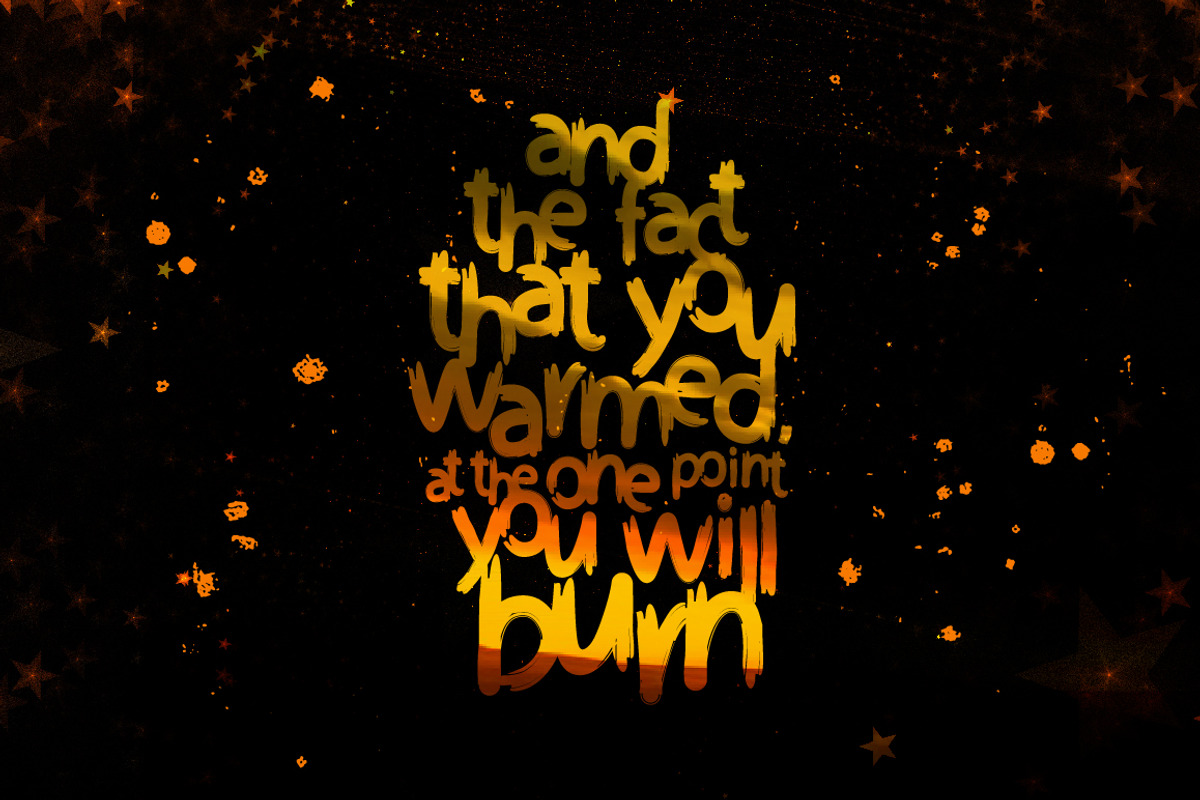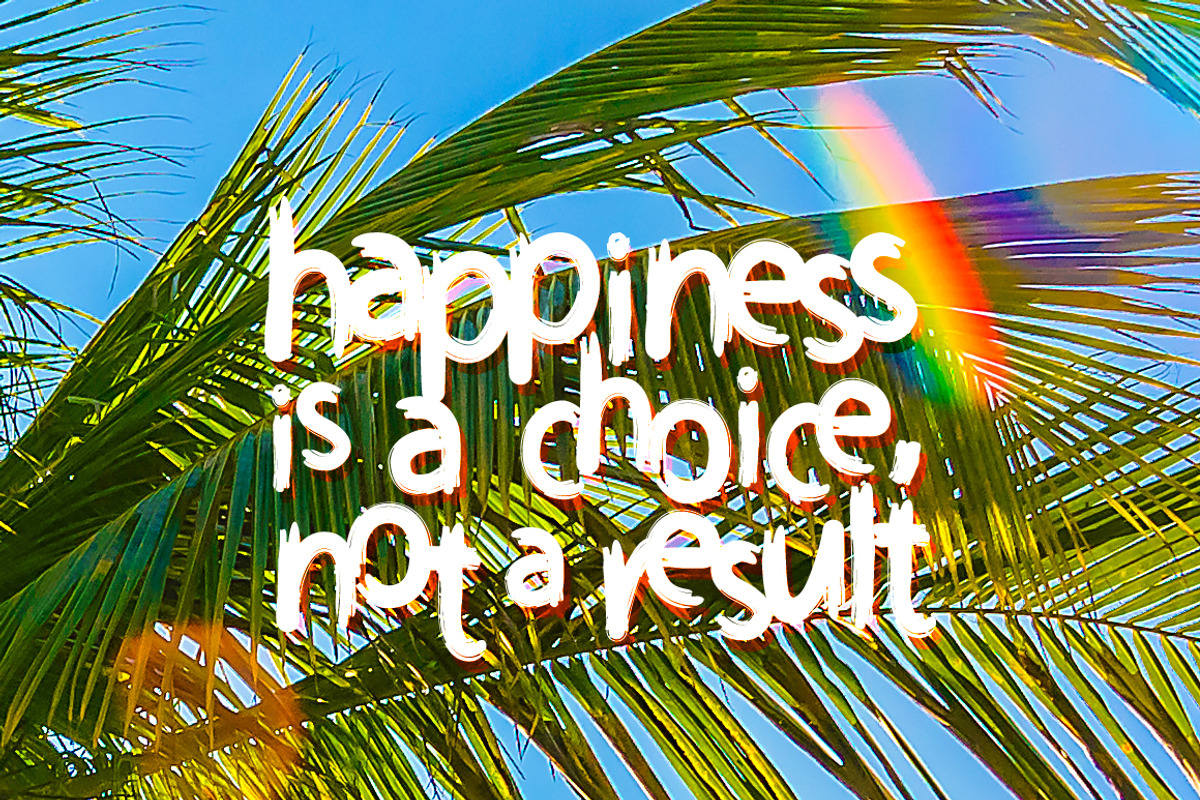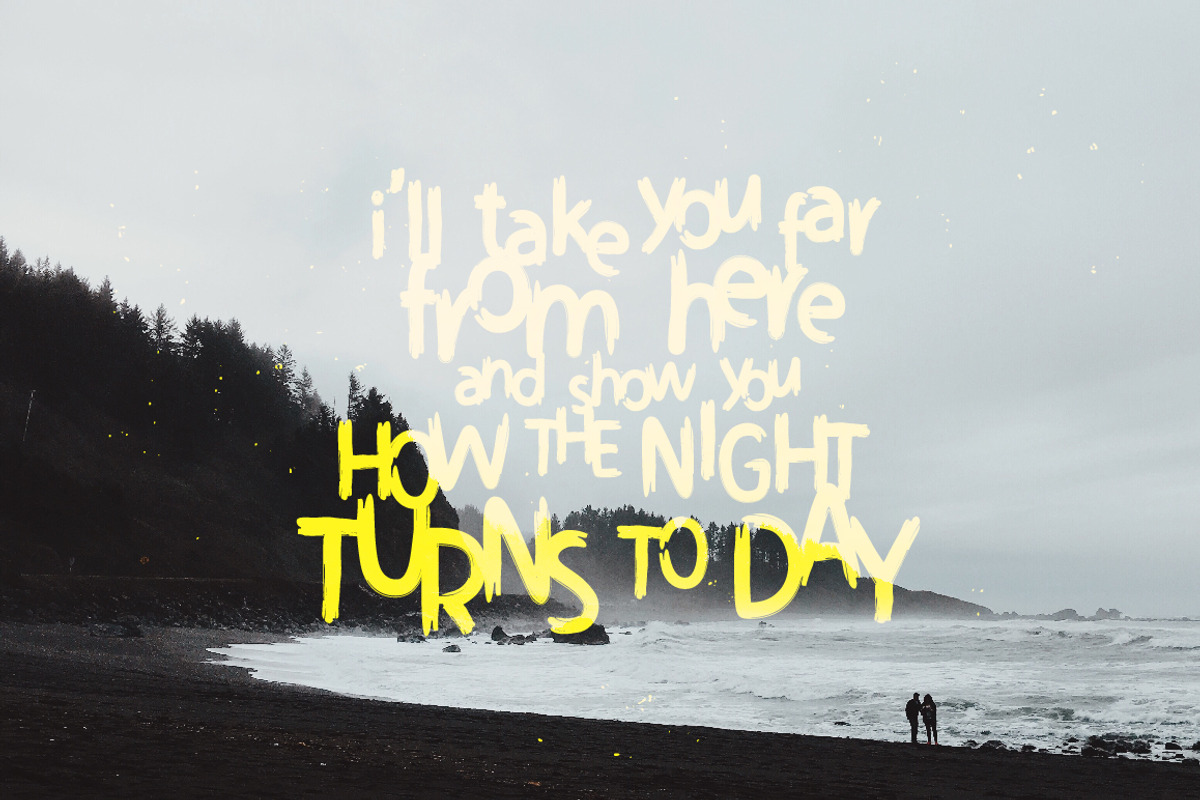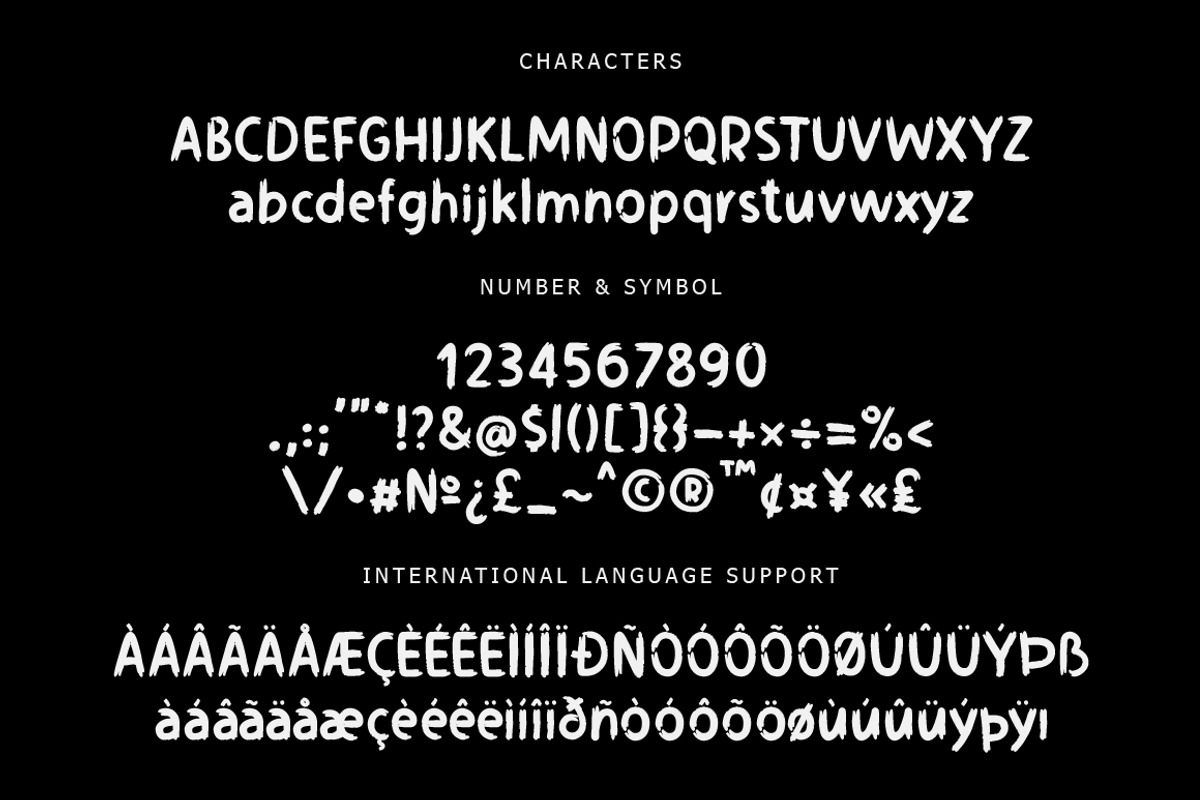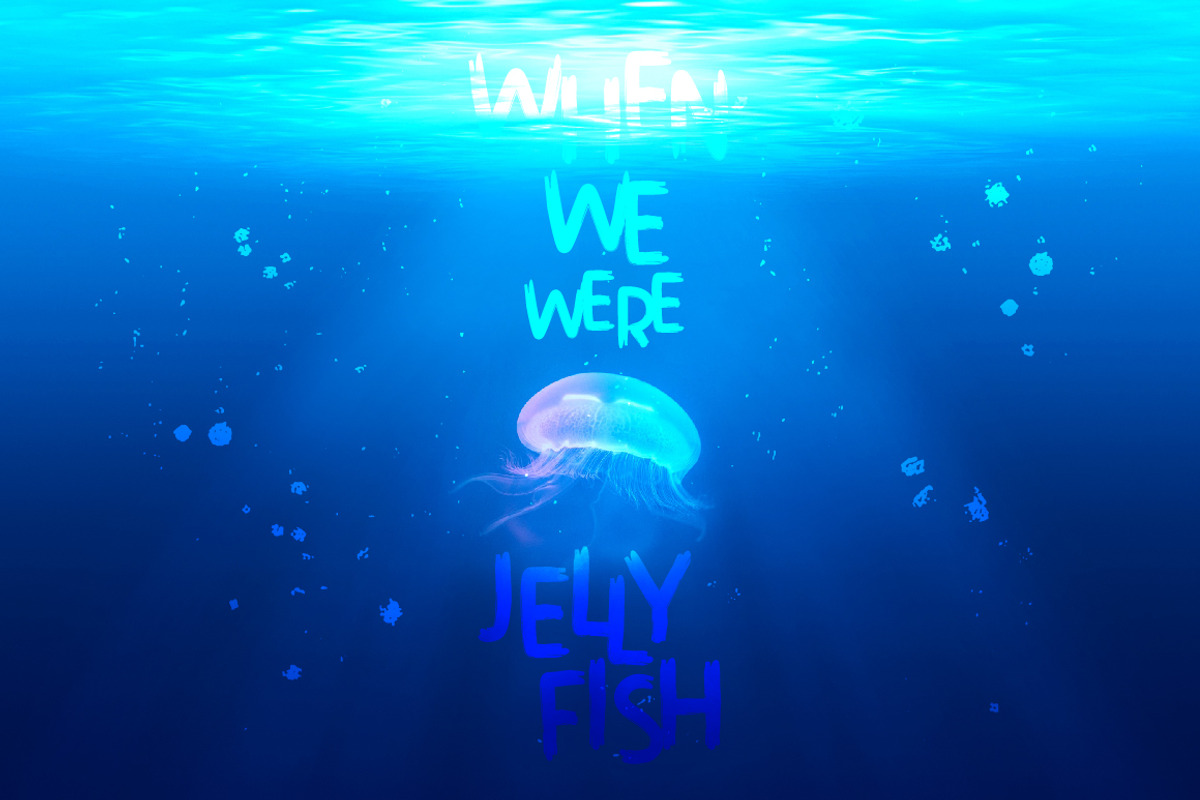
Disquise Brush Typeface
Disquise Brush Typeface by chekart is a font selected for branding, posters, packaging, typography.
- Disquise Brush Typeface comes with uppercase and lowercase characters, large set of punctuation glyphs, numerals, and supports international
Disquise Brush Typeface by chekart fits naturally into Branding, posters, packaging, typography.